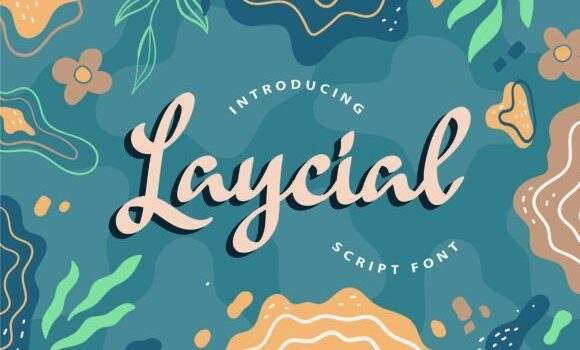
Laycial Font – Free Download Introduction to Laycial Font Laycial is a classic and luxurious script font that features graceful and elaborate curves, giving it a timeless, sophisticated look. 📸 Preview Gallery 5 images 📌 Product Name Laycial Font 👤